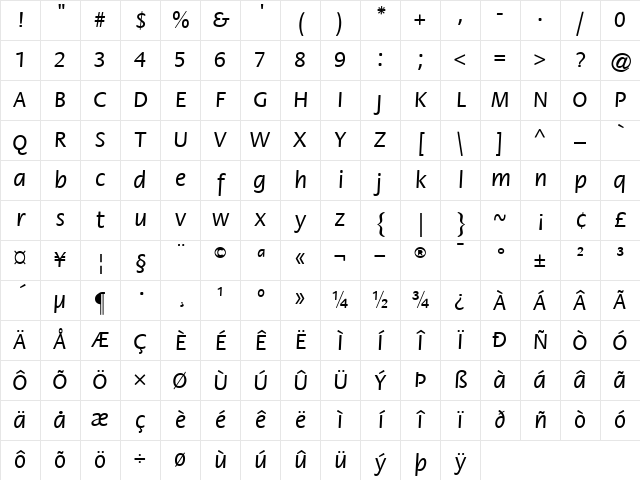
ITCFlora-Medium MediumItalic
Style: MediumItalic
Design Context for ITCFlora-Medium
ITCFlora-Medium is a composed and adaptable typeface that performs quietly and consistently across a wide range of design contexts. The slanted form adds forward momentum and visual energy.
Pro Tip: Use ITCFlora-Medium for emphasis, pull quotes, and subheadings where its slanted energy can add rhythm to the layout.